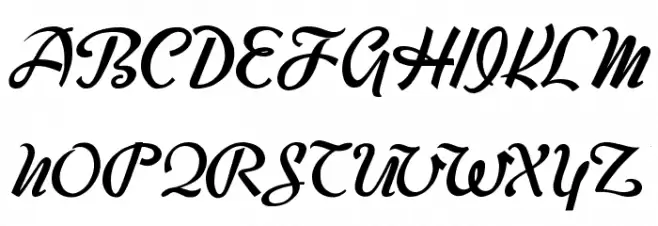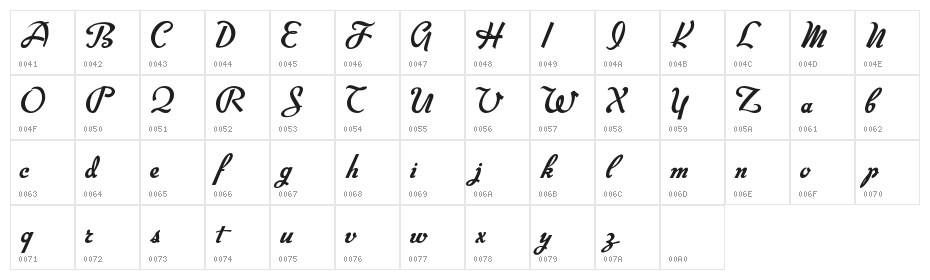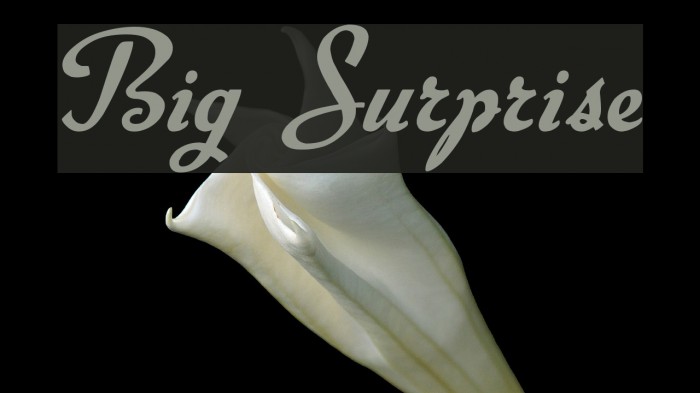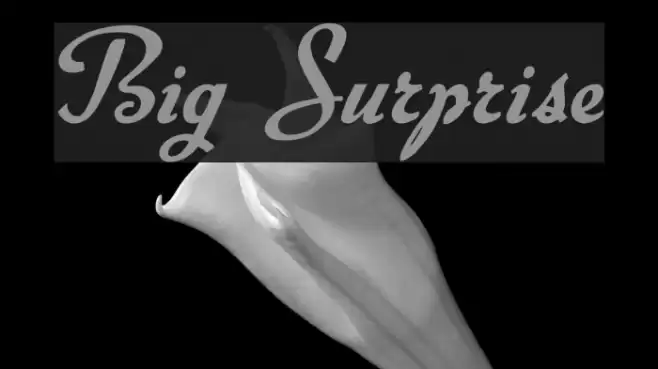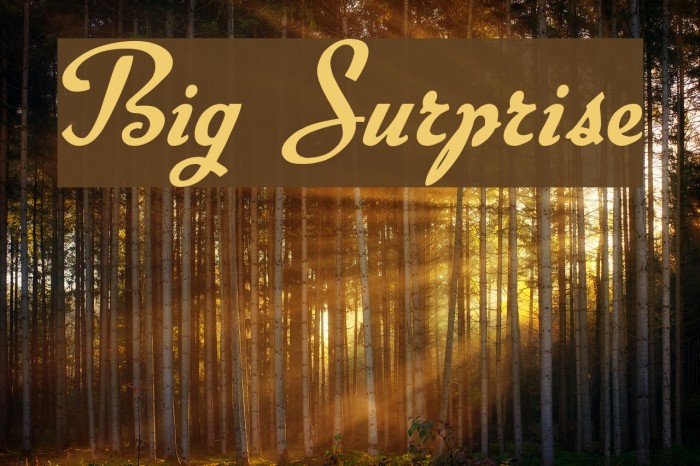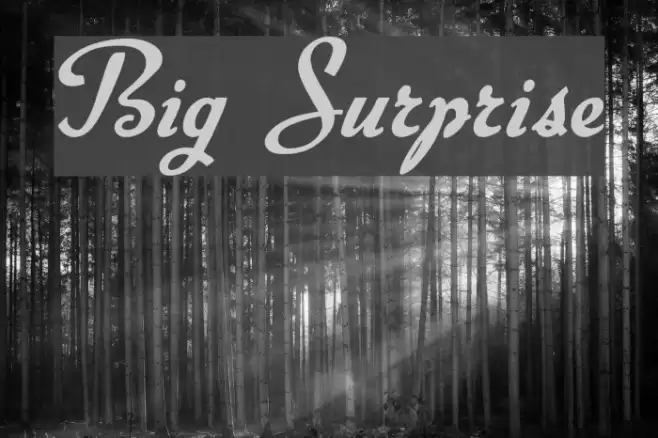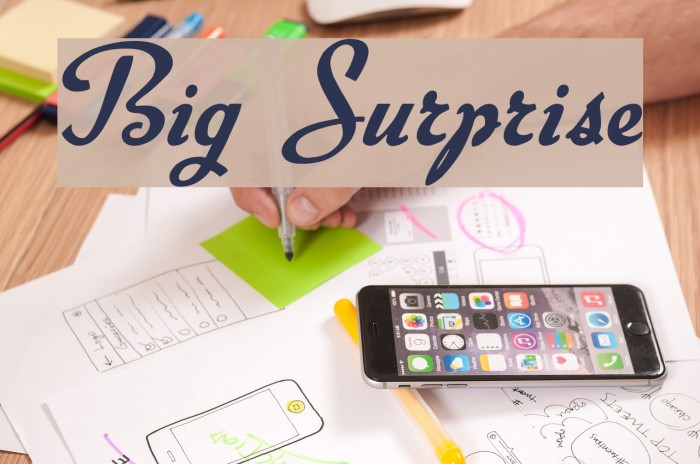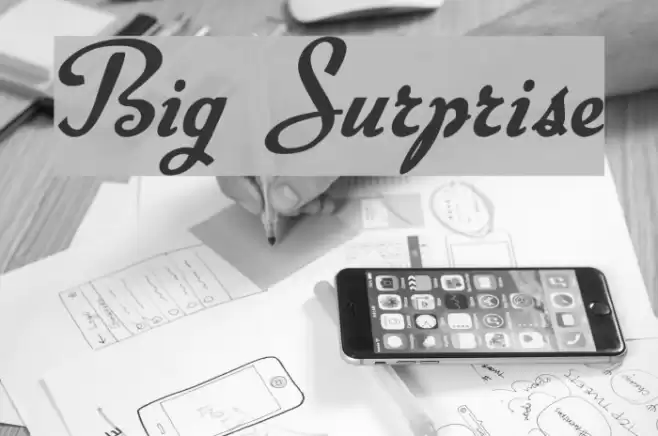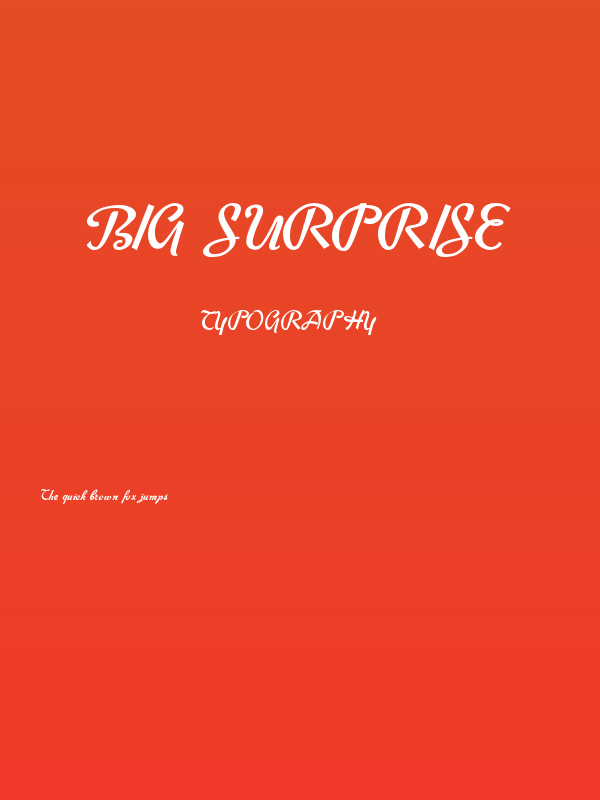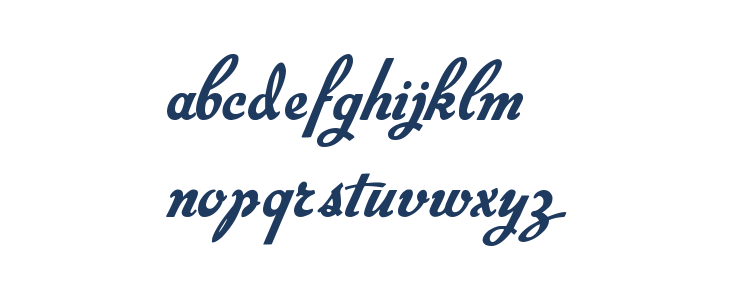
Big Surprise Font
Big Surprise Description
This font features a dynamic and elegant script style with a flowing, cursive design. The characters are interconnected, creating a sense of continuity and movement. The uppercase letters are bold and slightly slanted, while the lowercase letters maintain a consistent rhythm with smooth curves and loops. The font has a calligraphic feel, reminiscent of traditional handwriting, yet it maintains a modern twist with its clean lines and balanced proportions. The special characters blend seamlessly with the alphabet, ensuring a cohesive look across all text.
BIG-SURPRISE UPPERCASE
BIG-SURPRISE LOWERCASE
BIG-SURPRISE OTHER CHARS